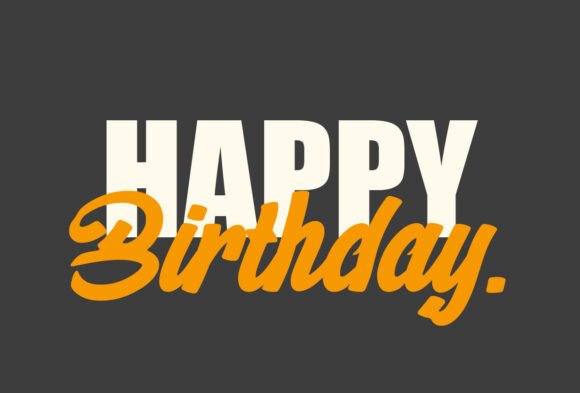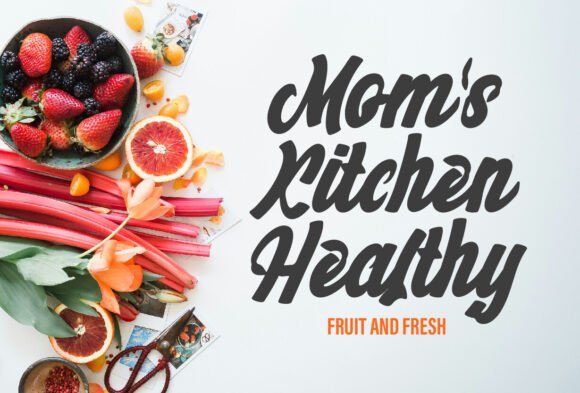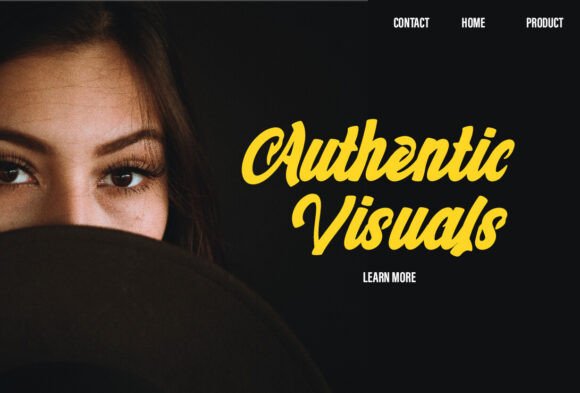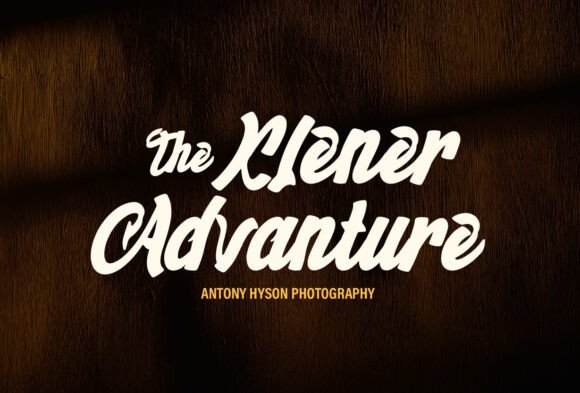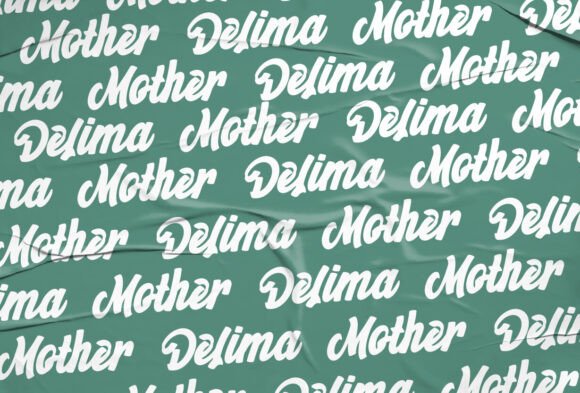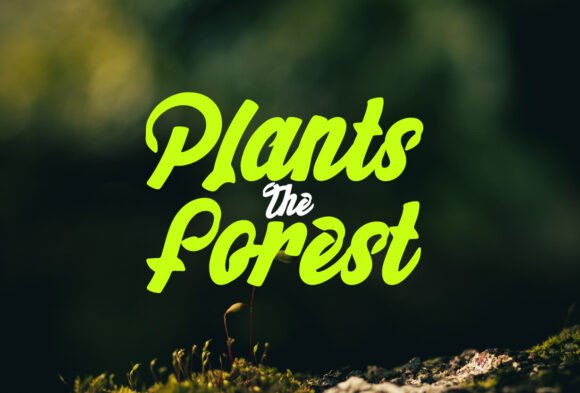
Introducing Bigheats Font: The Epitome of Elegance and Handcrafted Charm
In the realm of typography, few fonts manage to capture the essence of handwriting as beautifully as Bigheats Font. This stunning typeface boasts a soft and elegant brushstroke, reminiscent of fluid and skilled hand movements. The result is a font that exudes an artistic and handcrafted feel, perfect for designs that crave a personal and organic touch.
The Characteristics of Bigheats Font
Bigheats Font is distinguished by its unique typographic features, which set it apart from more conventional typefaces. The brushstrokes that comprise this font appear to be produced by a skilled hand, imbuing each letterform with a sense of fluidity and movement. This is particularly evident in medium to large typography sizes, where the details of the brushstrokes are showcased in exquisite detail.
Aesthetic Appeal and Versatility
One of the standout qualities of Bigheats Font is its aesthetic appeal. The soft and elegant nature of the brushstrokes lends itself to a wide range of design applications, from elegant invitations and event branding to sophisticated packaging and editorial design. The font’s versatility is further enhanced by its ability to convey a sense of warmth and personality, making it an excellent choice for designers looking to add a human touch to their work.
The Benefits of Using Bigheats Font
For designers and crafters, Bigheats Font offers a multitude of benefits. Firstly, its handcrafted feel allows for the creation of designs that stand out from the crowd, offering a refreshing alternative to more generic and overused typefaces. Additionally, the font’s organic and personal nature makes it ideal for projects that require a touch of elegance and sophistication.
Applications of Bigheats Font
Bigheats Font can be applied to a variety of design projects, including:
- Wedding Invitations and Event Branding: The font’s elegant and sophisticated nature makes it perfect for wedding invitations, event branding, and other ceremonial designs.
- Packaging Design: Bigheats Font can add a touch of luxury and sophistication to product packaging, helping brands to stand out on store shelves.
- Editorial Design: The font’s unique character makes it an excellent choice for editorial design, including magazine and book covers, as well as article headers and titles.
- Digital Media: Bigheats Font can also be used in digital media, such as social media graphics, website headers, and email newsletters.
Tips for Using Bigheats Font Effectively
To get the most out of Bigheats Font, consider the following tips:
- Experiment with Size: The font’s details are best showcased in medium to large sizes, so experiment with different sizes to achieve the desired effect.
- Pair with Simplicity: Bigheats Font’s elegance and sophistication can be complemented by pairing it with simpler typefaces or design elements.
- Consider Color: The font’s beauty can be further enhanced by carefully selecting colors that complement its soft and elegant nature.
Bigheats Font is a beautiful and elegant typeface that offers designers and crafters a unique opportunity to add a personal and organic touch to their work. With its soft and elegant brushstrokes, fluid hand movements, and artistic feel, this font is perfect for a wide range of design applications. Whether you’re working on a wedding invitation, packaging design, or editorial project, Bigheats Font is sure to make a lasting impression.